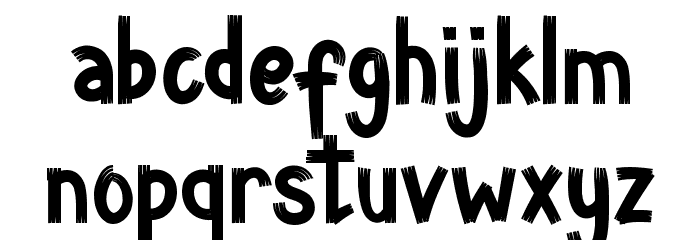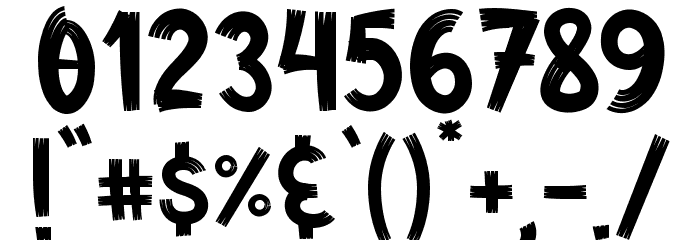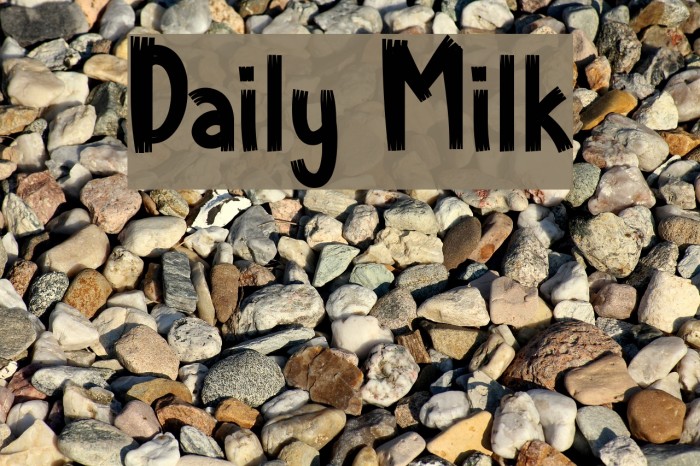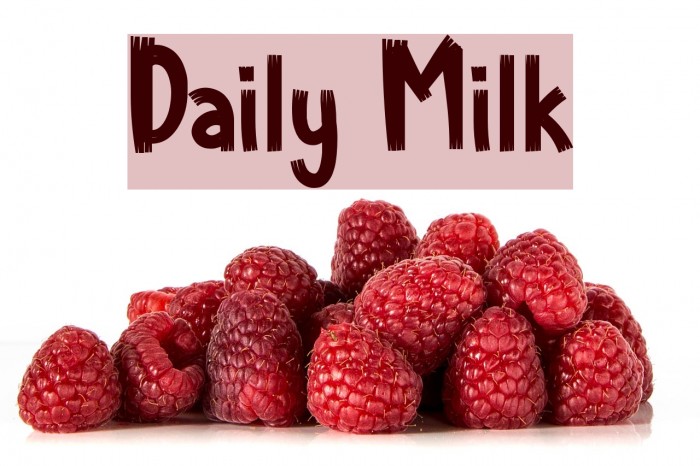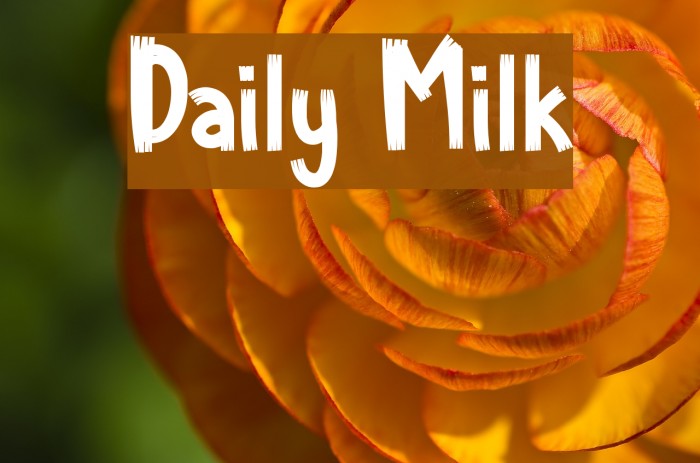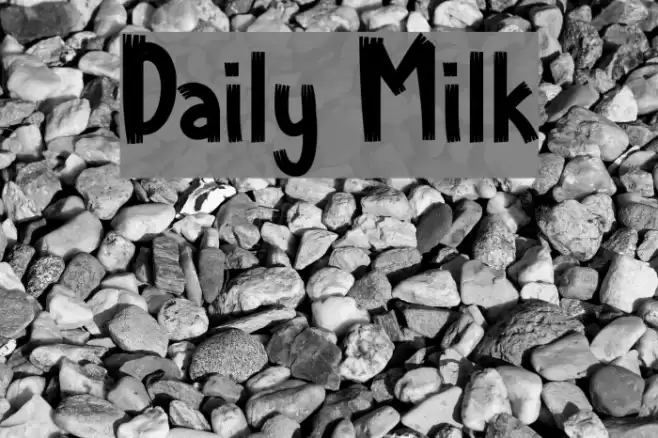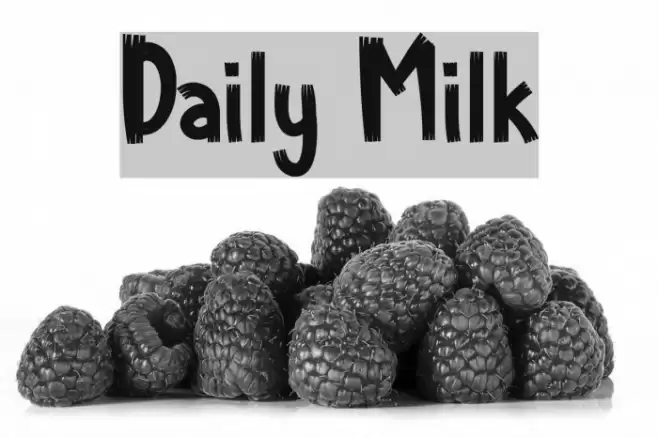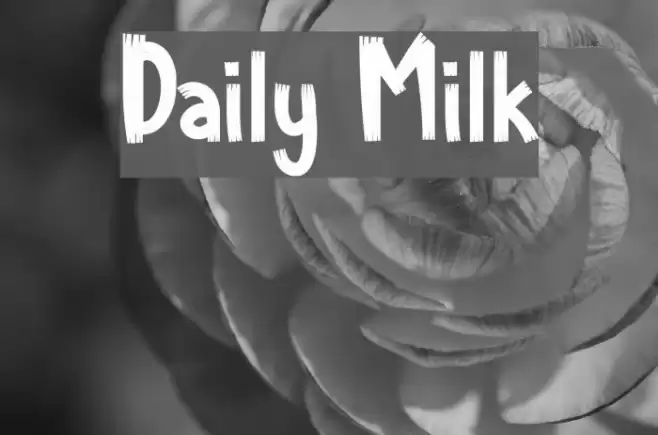
Daily Milk Font
This font features a playful and bold design, characterized by its hand-drawn appearance and uneven strokes. The letters exhibit a dynamic and energetic style, with varying thicknesses that give a sense of movement and spontaneity. The uppercase and lowercase characters maintain a consistent whimsical flair, making them suitable for creative and informal applications. The numbers and special characters follow the same lively aesthetic, ensuring a cohesive look across all text elements. Its unique style makes it ideal for projects that aim to convey fun and creativity.
A playful, hand-drawn font with bold, uneven strokes and a lively aesthetic.
- Proposed Projects: Perfect for children's books, playful branding, posters, and creative social media graphics.
- Overall Style: Playful, Energetic, Hand-drawn
- Use Case: Headlines, Posters, Branding